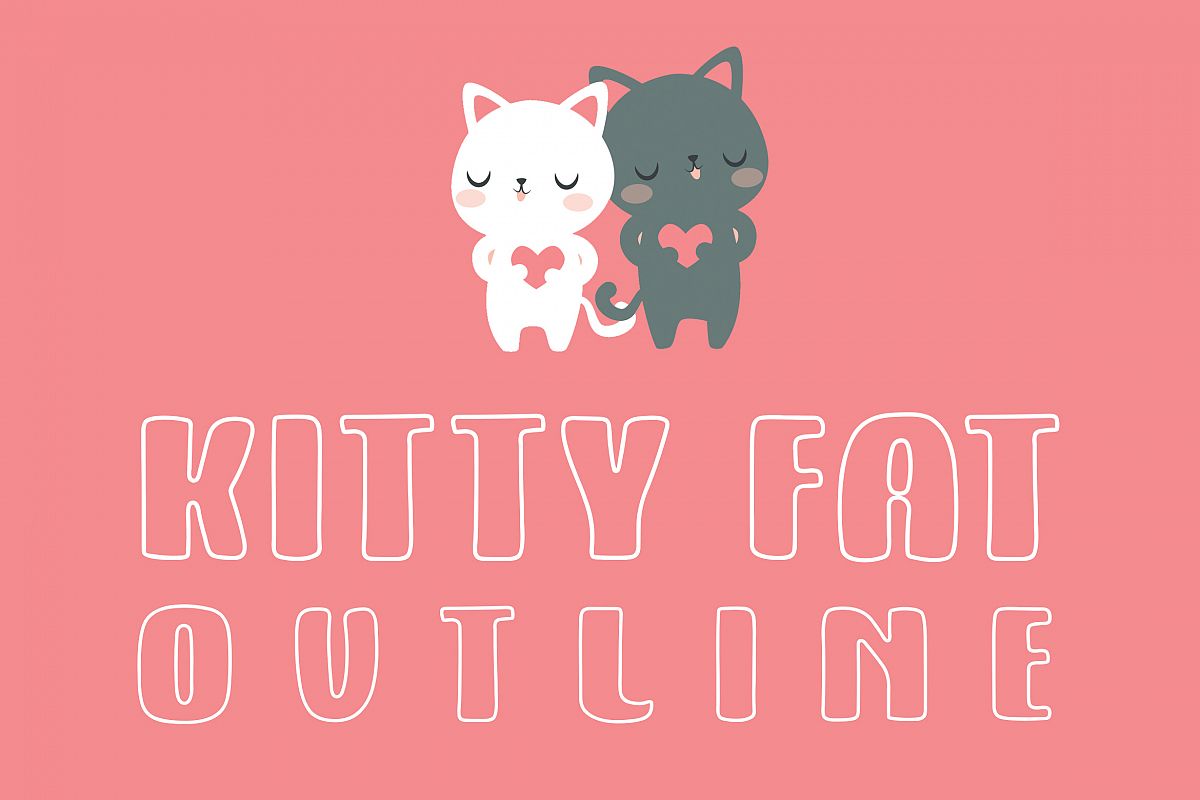
Kitty Fat is handwritten bold font
made with large brush pen, Outlined version of kitty fat font. Bold,
smooth and Outline font perfectly fits for kids and cartoon projects.